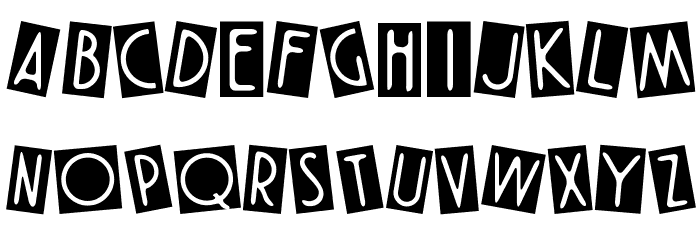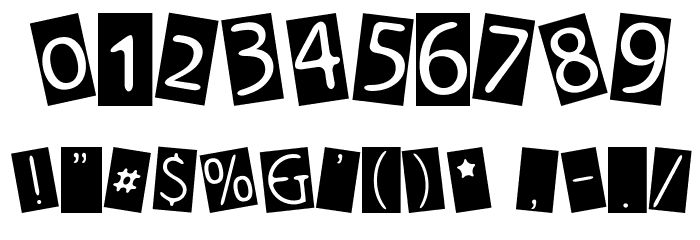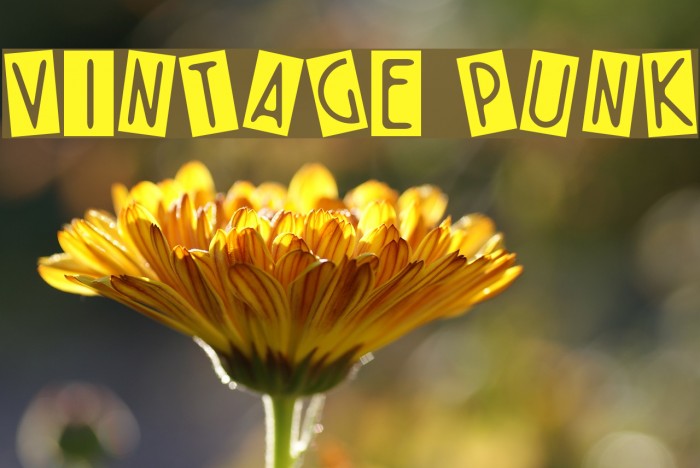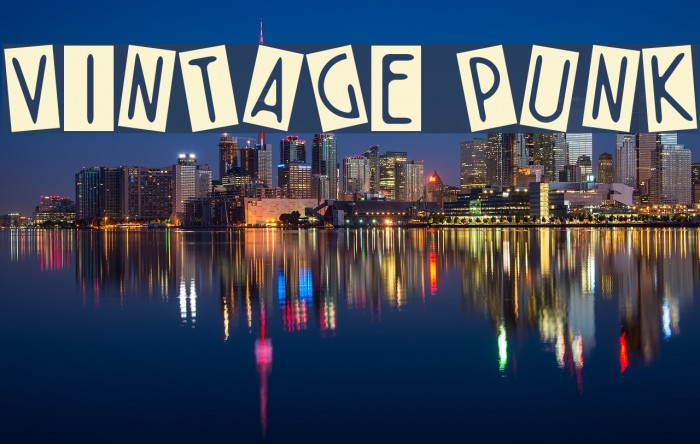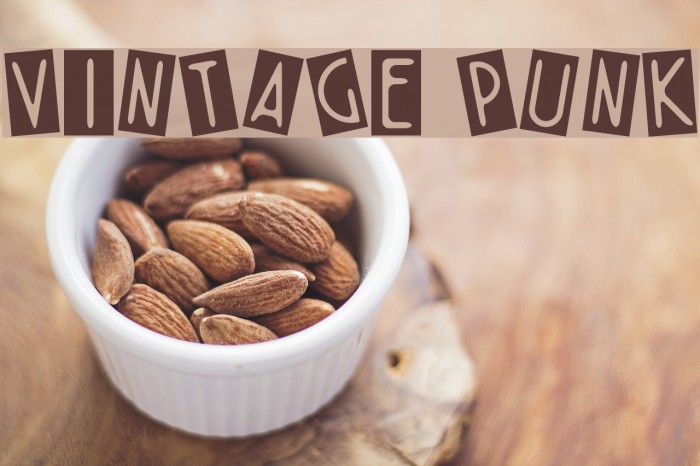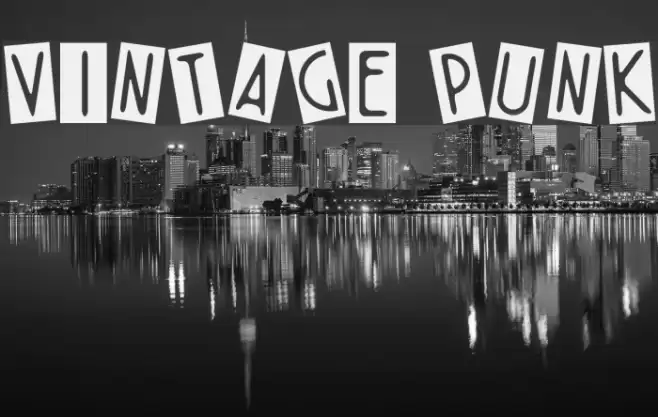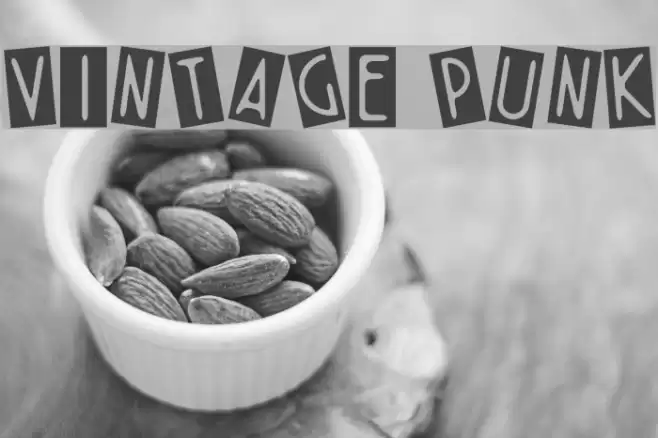
VINTAGE PUNK Font
This font exudes a rebellious and edgy vibe, reminiscent of a punk rock aesthetic. Each character is uniquely placed on a tilted, irregular black background, giving it a cut-and-paste, DIY feel. The letters are bold and slightly distorted, adding to the chaotic and energetic style. The uppercase and lowercase characters maintain this dynamic appearance, while the numbers and special characters follow suit with their own quirky twists. The overall design is playful yet bold, making it perfect for projects that require a strong, unconventional statement.
A bold, edgy font with a punk rock, cut-and-paste aesthetic.
- Proposed Projects: Ideal for music album covers, event posters, zines, and any project needing a rebellious, standout look.
- Overall Style: Vintage, Punk
- Use Case: Headlines, Posters, Logos